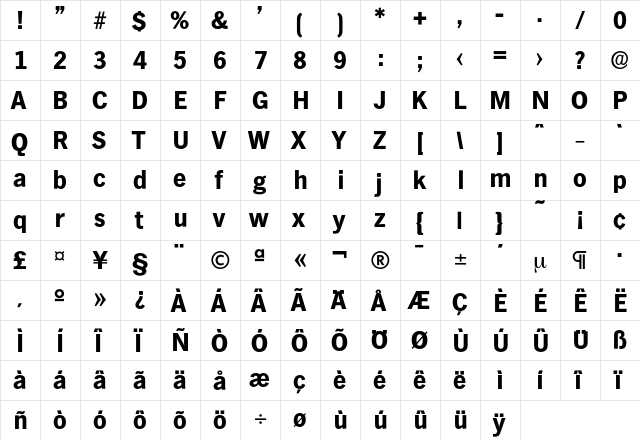
Hamburg-Bold Regular
Design Context for Hamburg-Bold Typeface
Hamburg-Bold is a composed and adaptable typeface that performs quietly and consistently across a wide range of design contexts. Its bold stroke weight gives it real presence on the page.